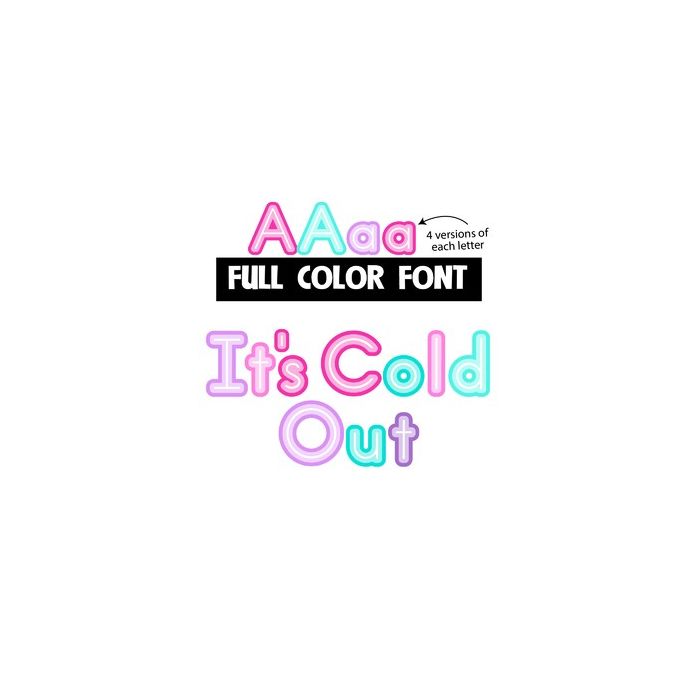
This full-color font features a winter color palette and has an additional upper and lowercase that you can access through your system's glyph map. This font works best for titles, displays, posters and more. Please note color fonts will show as black in non compatible programs. This font type is compatible with Silhouette Studio.